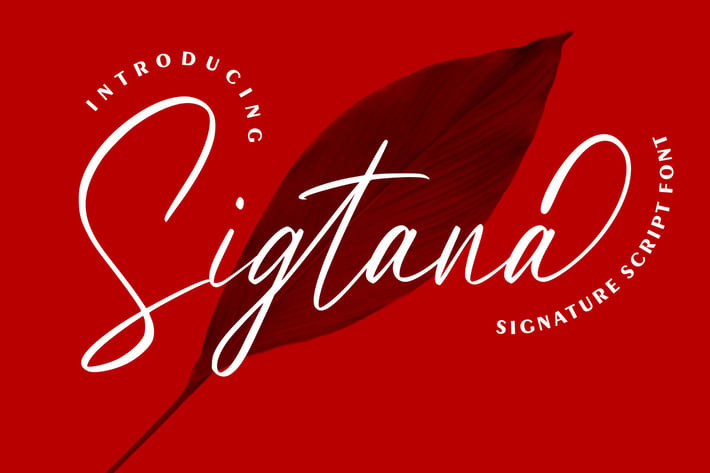
Sigtana | Signature Script Font
Sigtana | Signature Script Font with a calligraphy style, So beautiful on invitation like greeting cards, branding materials, business cards, quotes, posters, and more!